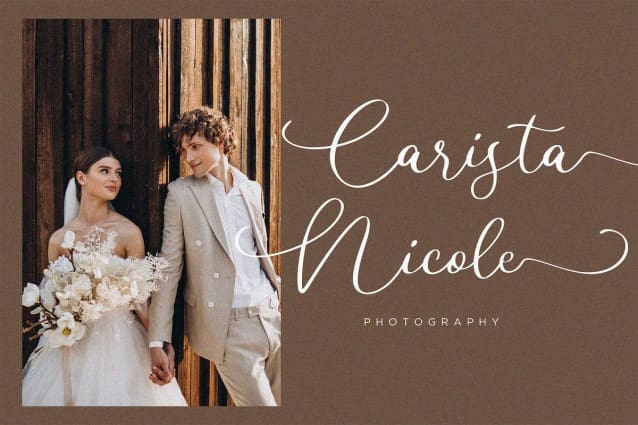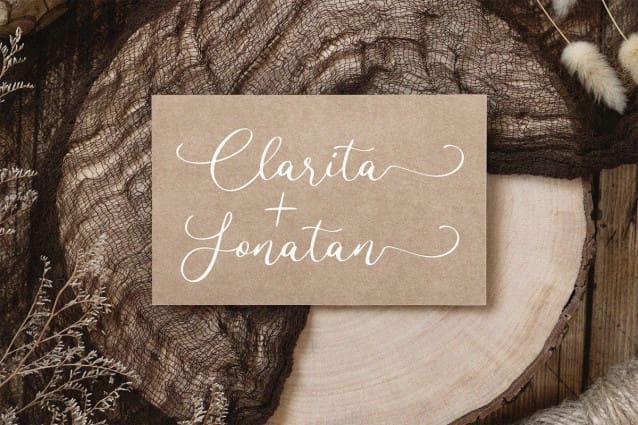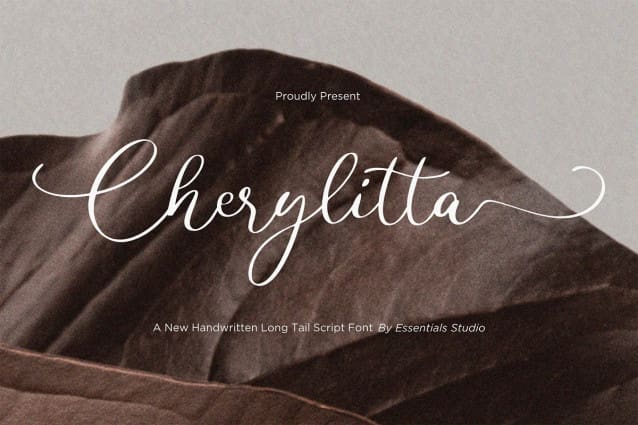
Cherylitta Font
Cherylitta Font is a beautiful calligraphy font with tails.  Perfectly fit for branding, logo, wedding things, greeting cards, fashion, lookbook, marketing promotion, anytime you want to look fancy elegant but still casual.